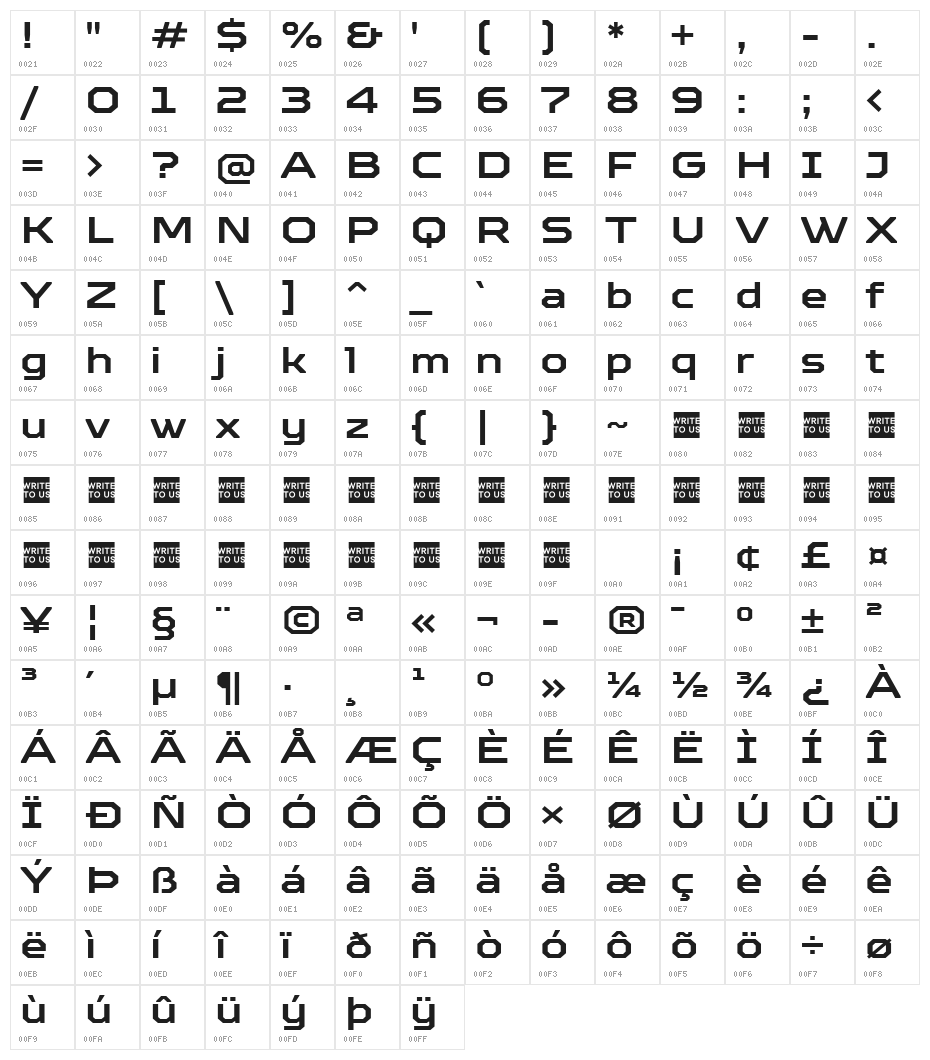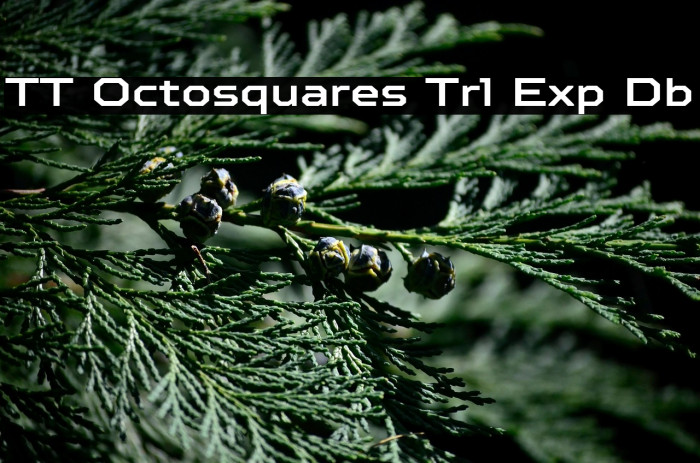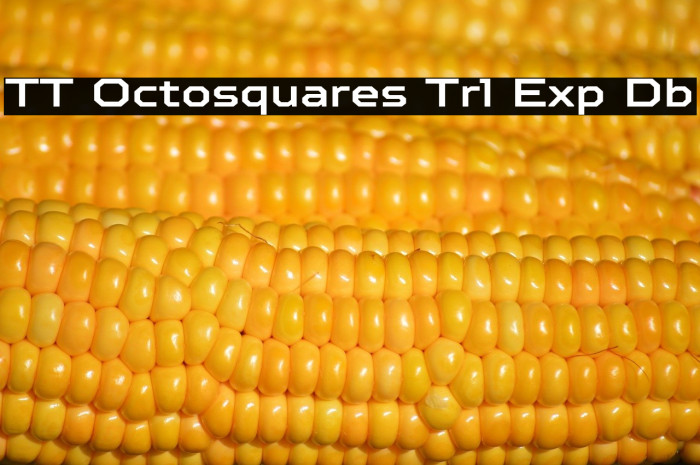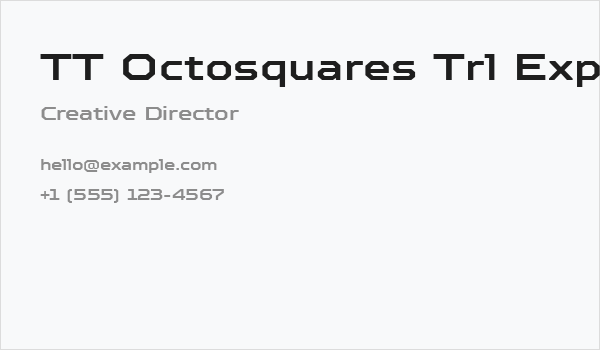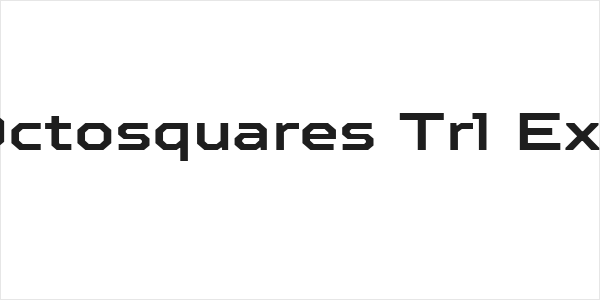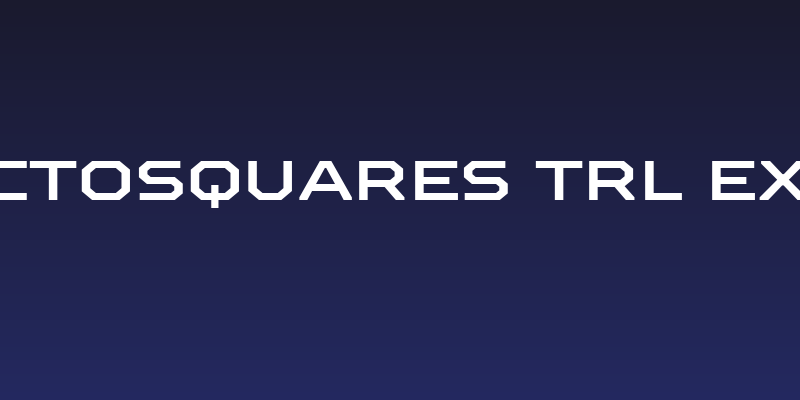
TT Octosquares Trl Exp Db Font
TT Octosquares Trl Exp Db Description
This font features a geometric and modern design with a distinct square-like structure. The characters are bold and have a uniform thickness, giving them a strong and impactful appearance. The edges are sharp, and the overall style is clean and precise, making it suitable for contemporary designs. The uppercase and lowercase letters maintain a consistent style, and the numerals are clear and easy to read. Special characters are well-integrated, maintaining the font's cohesive look.
| Proposed Projects | Ideal for technology branding, modern posters, digital interfaces, and futuristic designs. |